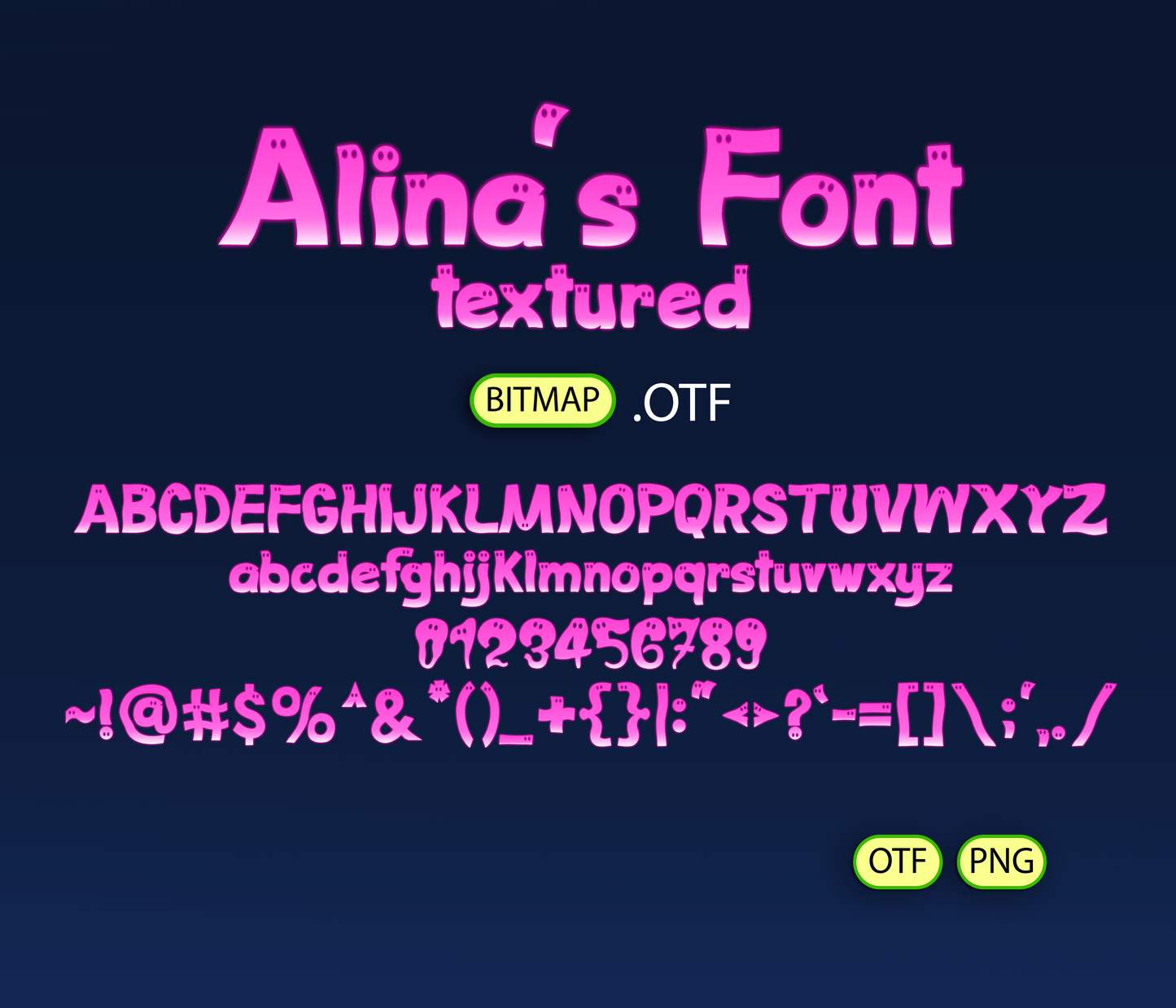
Spectral Sidekick's Font Textured
Spectral Sidekick's Script
Venture into the charmingly eerie world of a certain green-clad ghost hunter with our Spectral Sidekick's Script. This font set captures the essence of haunted house hijinks with a playful twist, perfect for fans, designers, and creatives looking to add a touch of spooky fun to their projects.
Our Spectral Sidekick's Script features whimsical, slightly trembling characters with a hint of cartoon spookiness, reflecting the blend of ghostly themes and lighthearted adventure. Ideal for:
Our font pays homage to the beloved world of a reluctant hero and his ghostly misadventures, empowering your designs with its charming and slightly spooky spirit. Whether you're crafting fan tributes, designing themed gatherings, or adding a touch of paranormal pizzazz to personal projects, this font communicates the essence of ghost-busting escapades with a quirky, game-inspired twist.
Luigi's Mansion Font